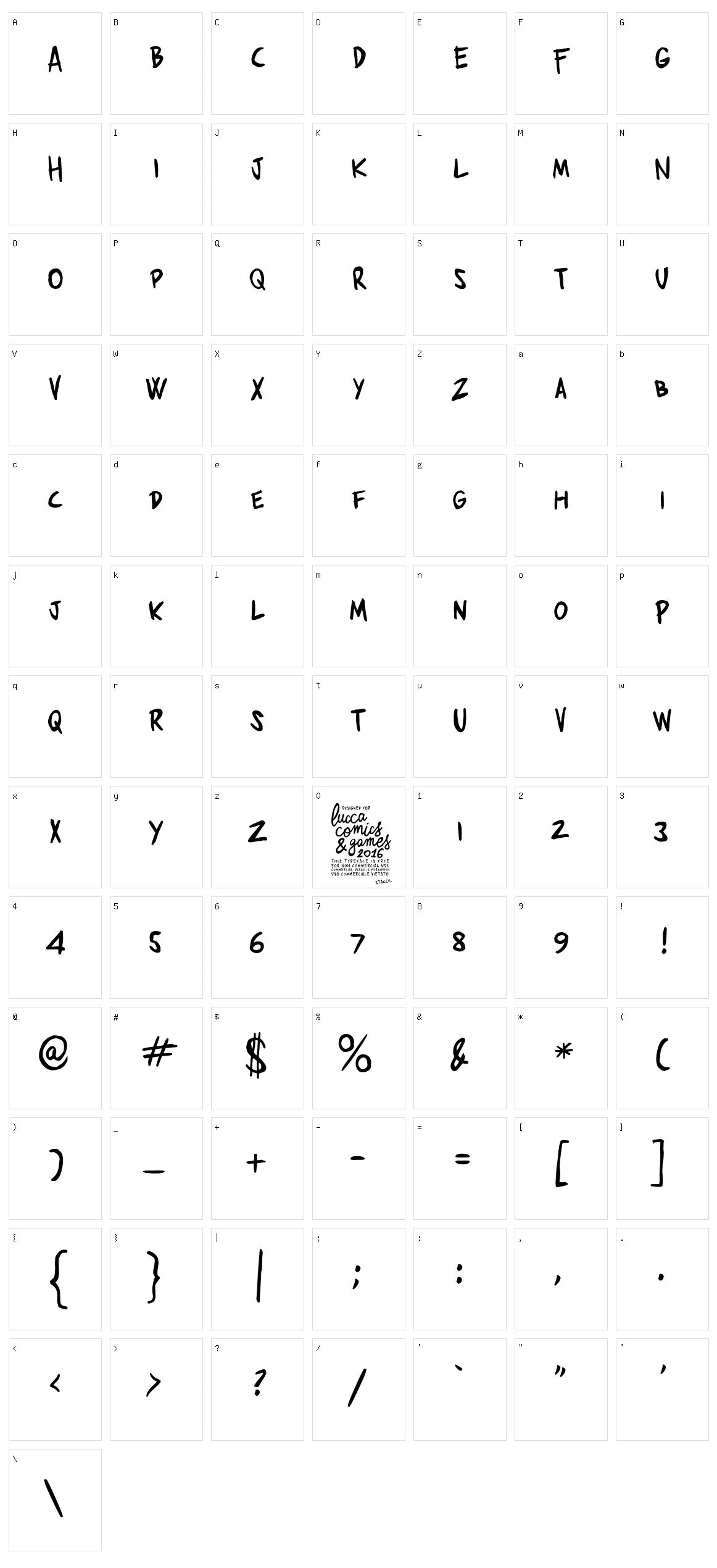
The free font Zerocalcare is carefully designed by Zetafonts, showcasing a thoughtful balance of creativity and usability and falls under the Script font style. When you download the ZIP file, it contains only 151 KB of font files, making it lightweight and quick to download. Please review the license details below to understand permitted usage and distribution rights. If license information is not available, we recommend using this font for personal projects only or contacting the author directly for commercial usage permissions.